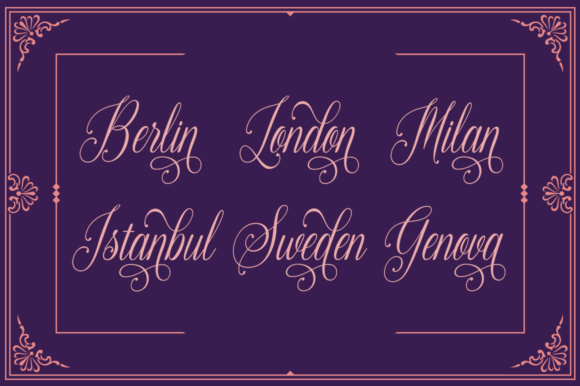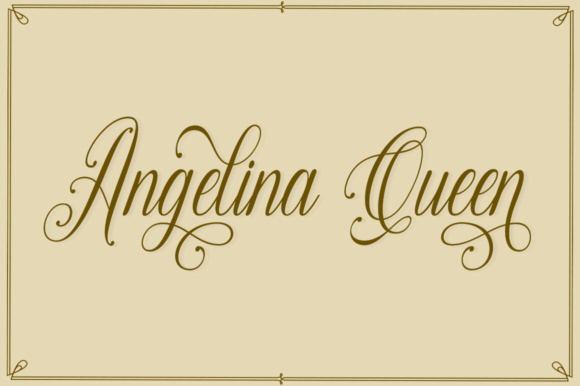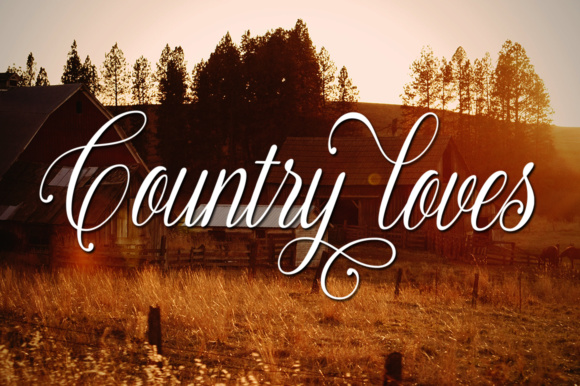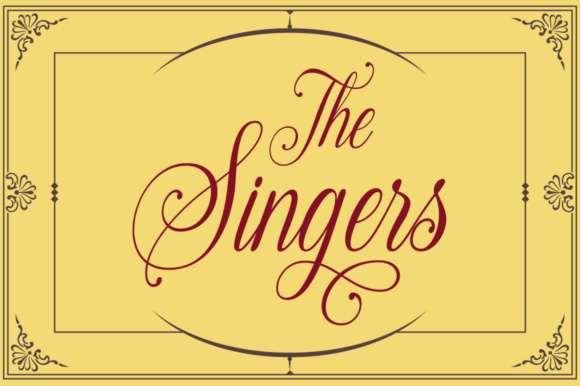
The Singers is a modern handwritten calligraphy script.
It’s the type that will bring a little music to your designs.
The Singers is a modern handwritten calligraphy script.
It’s the type that will bring a little music to your designs.